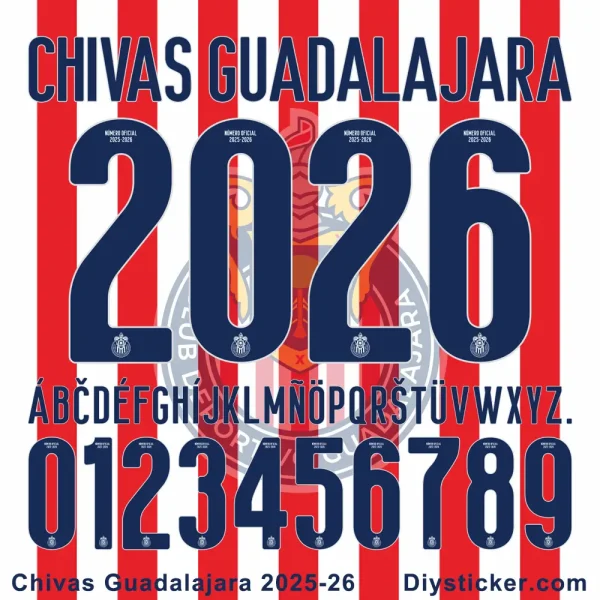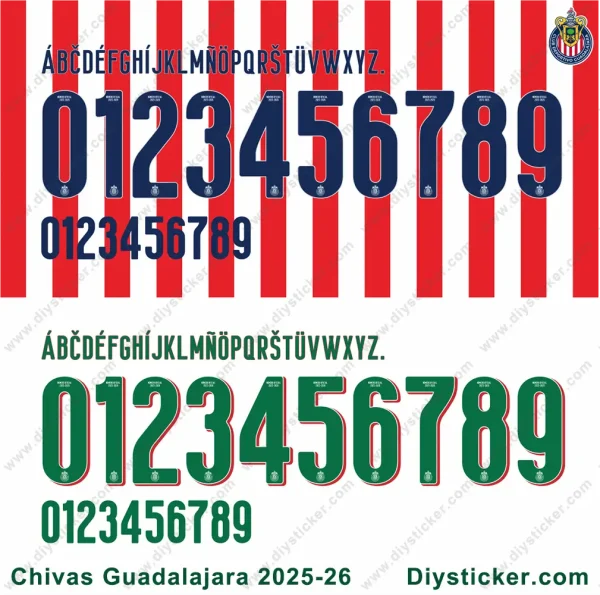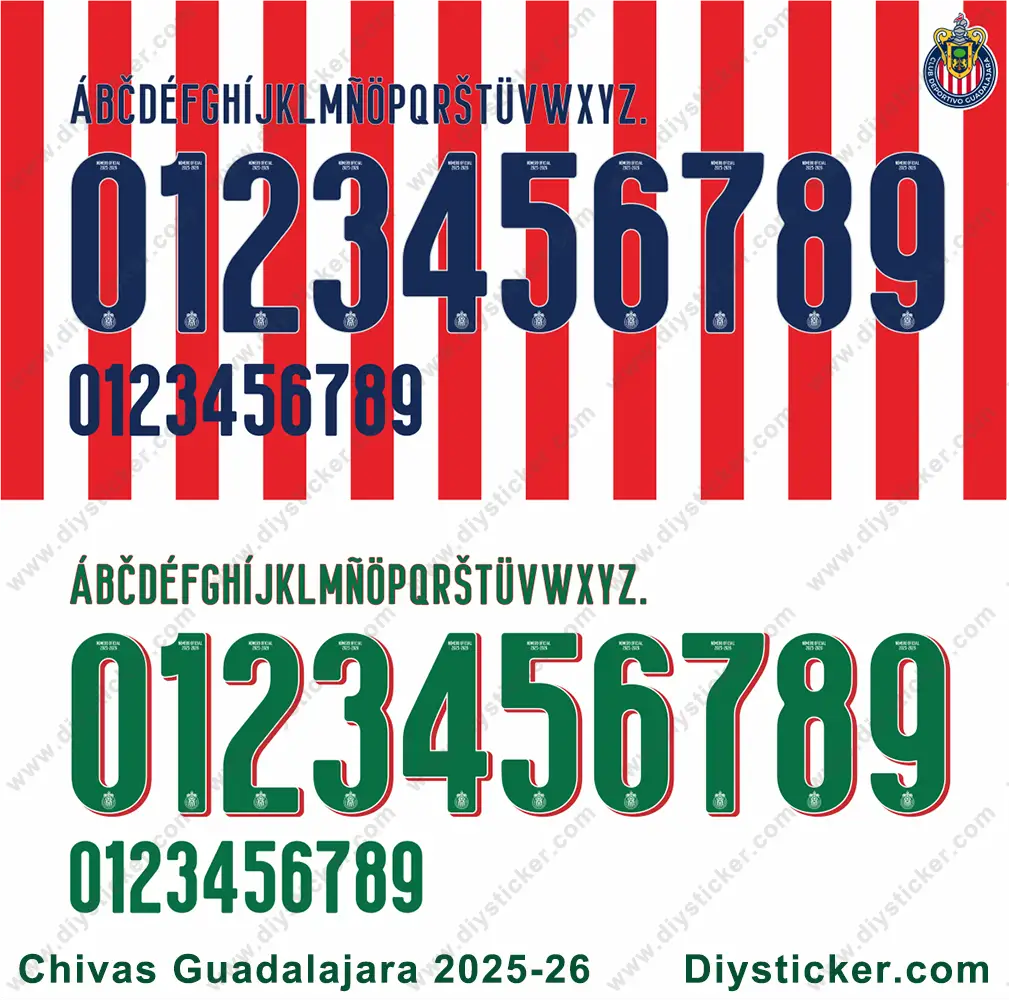
Chivas Guadalajara 2025/26 Font Downloads
Create your own authentic Chivas Guadalajara jersey with the official 2025/26 font, the exact style used for player names and numbers on the team’s home and away kits. Perfect for passionate fans, designers, and collectors, this high-quality font package allows you to add a professional, official look to any custom shirt or project.